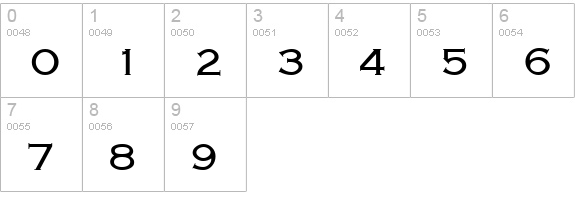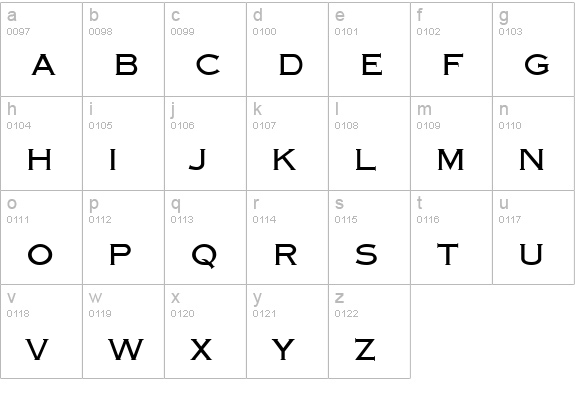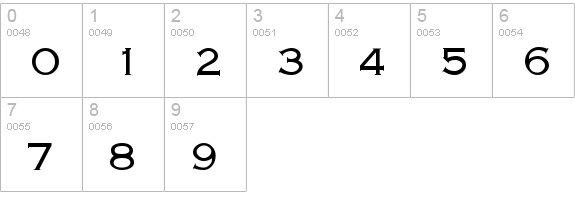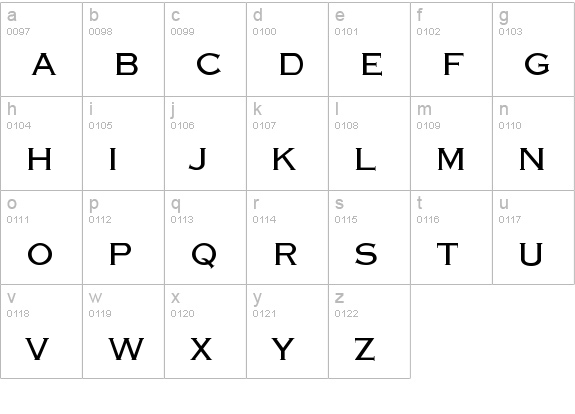
Graverplate Regular is the standard, neutral variant in the Graverplate typeface family \xE2\x80\x94 well suited to general body text, paragraphs, and standard typographic work.
Graverplate Regular font is a versatile and elegant typeface that exudes sophistication and professionalism. With its clean lines and classic design, this font is perfect for a wide range of projects, from branding to editorial design. The timeless appeal of Graverplate Regular makes it a must-have for designers looking to add a touch of refinement to their work. And the best part? Graverplate Regular font is available for free download at FontsMarket.com. Whether you're a seasoned designer or just starting out, this font is a valuable addition to your toolkit. Don't miss out on the opportunity to enhance your projects with the timeless beauty of Graverplate Regular font. Download it today and elevate your designs to new heights.